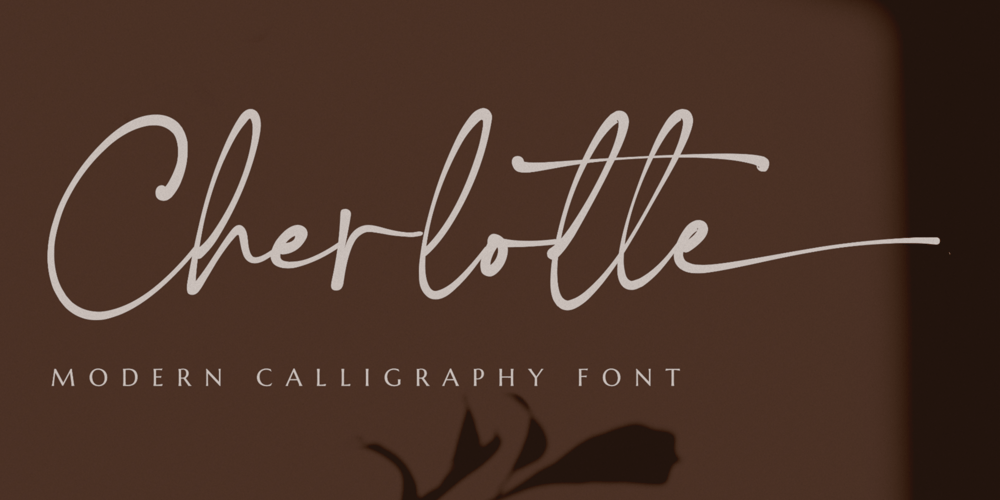
Cherlotte Font Family was designed by Agam Rahmadan and published by Viswell. Cherlotte contains 1 styles and family package options. Cherlotte is a modern calligraphy font. This font will be perfect for your design project likeBranding, wedding, cards, and many more.Cherlotte includes Upercase & Lowercase letters, numeral, punctuation, lowercase ending swash,and ligaures.